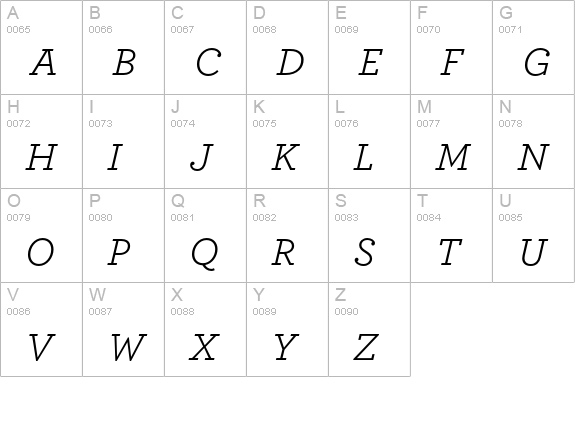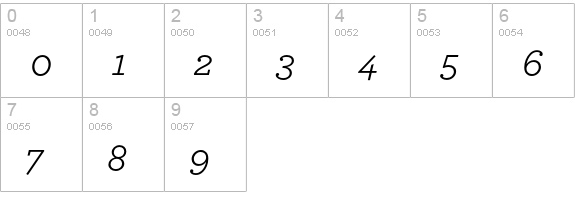
ArcherPro Book Italic is a comfortable, highly readable, italic variant in the ArcherPro typeface family \xE2\x80\x94 well suited to long-form body text, articles, and editorial content.
ArcherPro Book Italic font is a stunning and elegant typeface that exudes sophistication and modernity. Its sleek and stylish design makes it perfect for a wide range of projects, from branding to editorial design. The italic style adds a touch of flair and dynamism to your text, making it stand out beautifully on the page. And the best part? ArcherPro Book Italic font is available for free download at FontsMarket.com! This means you can easily access this high-quality font without any cost, allowing you to elevate your design projects without breaking the bank. Don't miss out on this fantastic opportunity to enhance your work with the timeless beauty of ArcherPro Book Italic font. Download it today and take your designs to the next level!